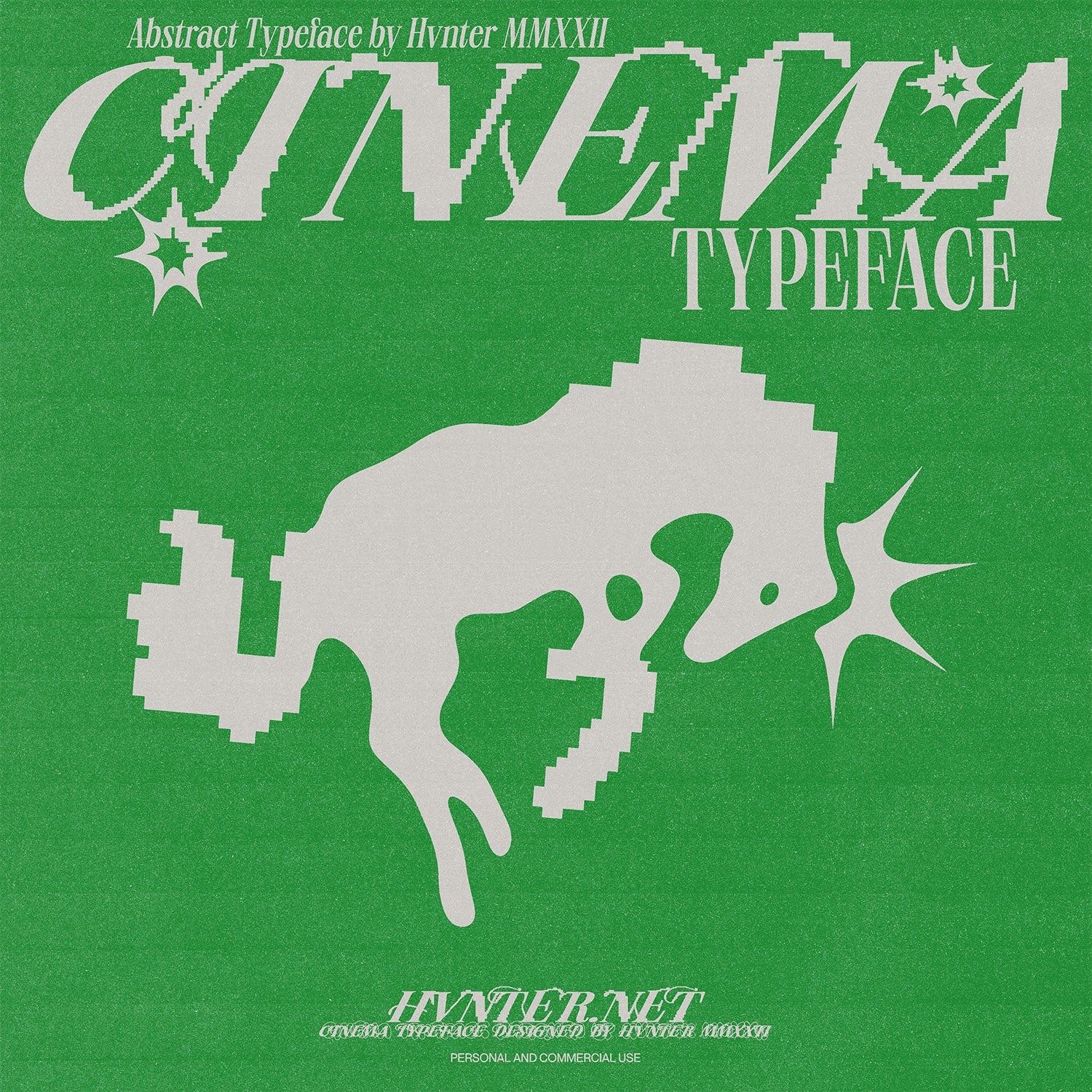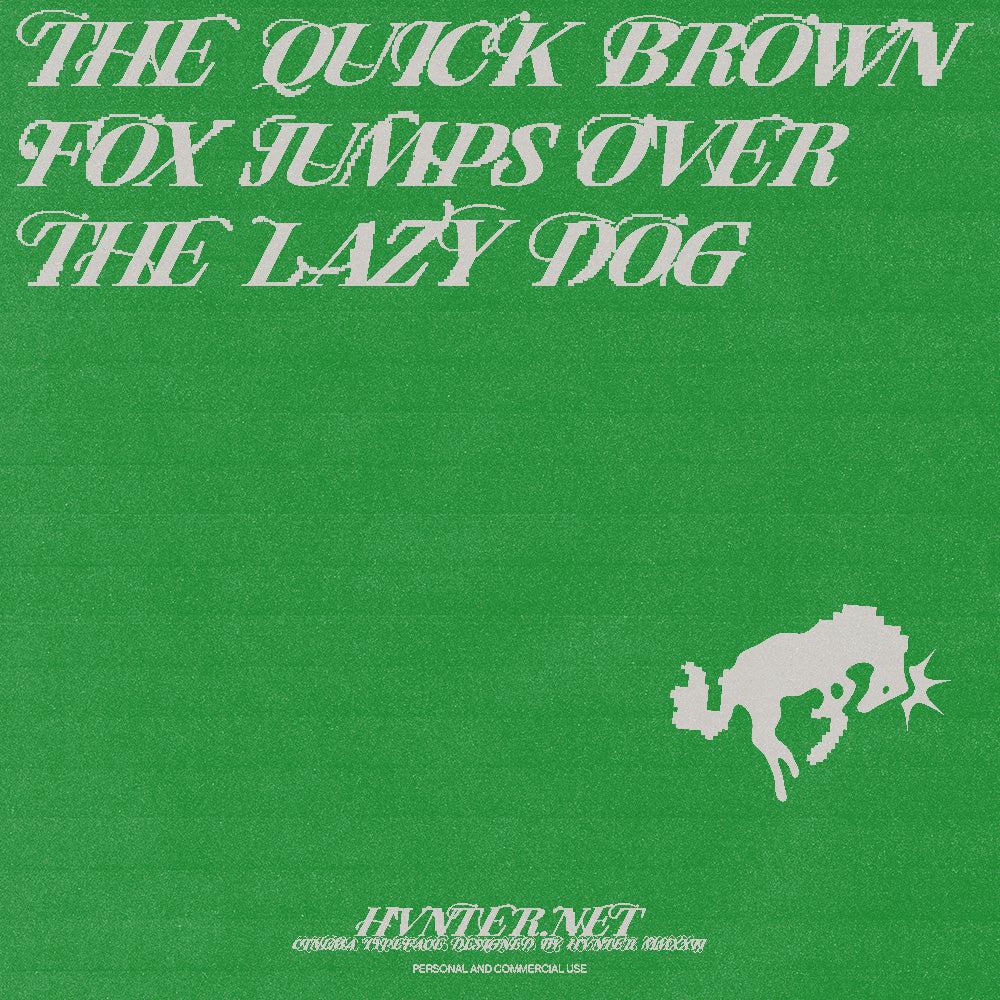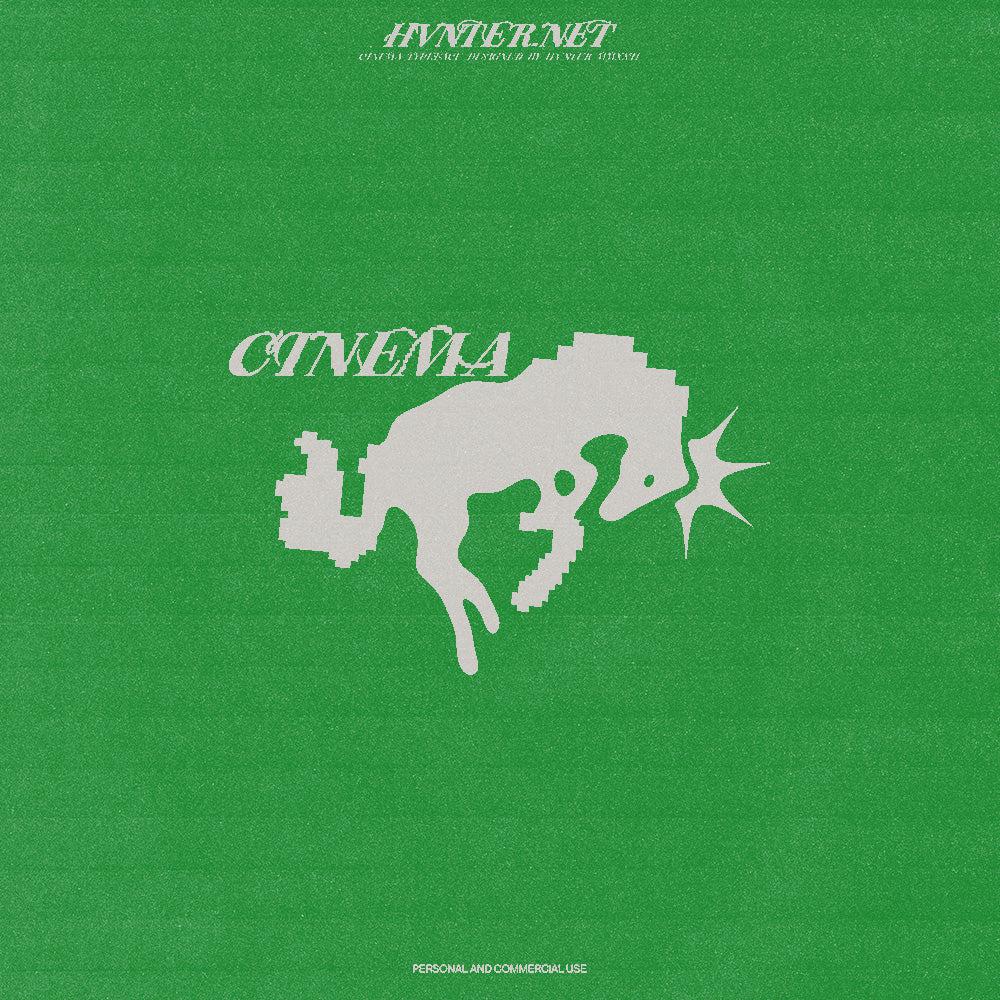
Cinema Typeface
Abstract hybrid typeface - merging clean form with pixelated accents. Includes A-Z, 0-9, basic symbols (.otf font file)
The Cinema Typeface is an abstract hybrid font that combines a clean form with pixelated accents. It includes characters A-Z, numbers 0-9, and basic symbols in an .otf font file.